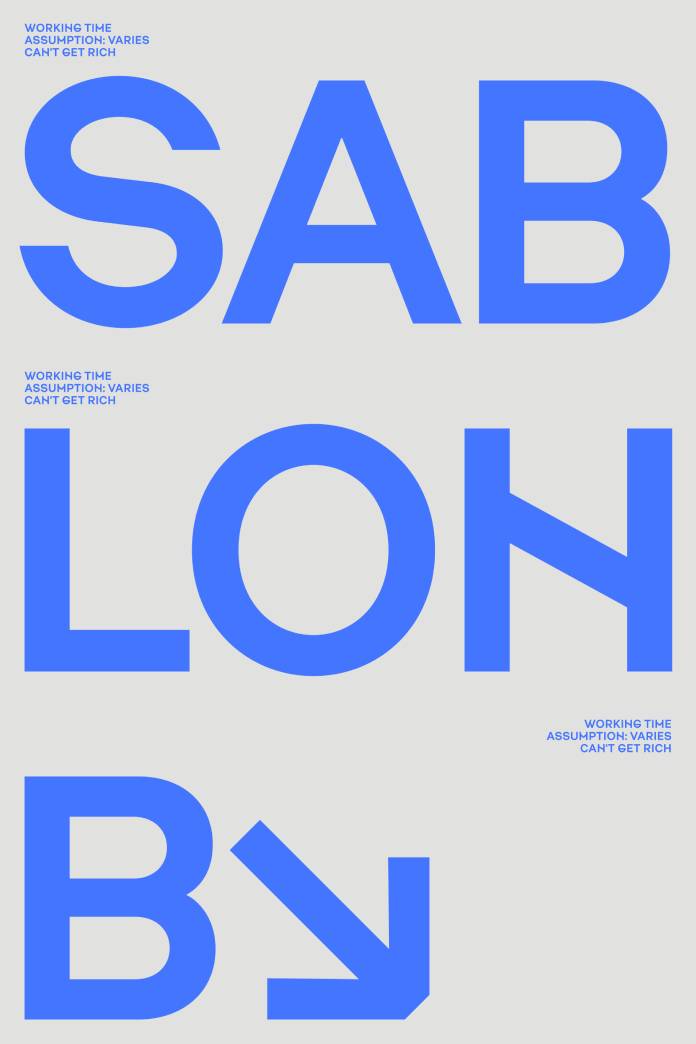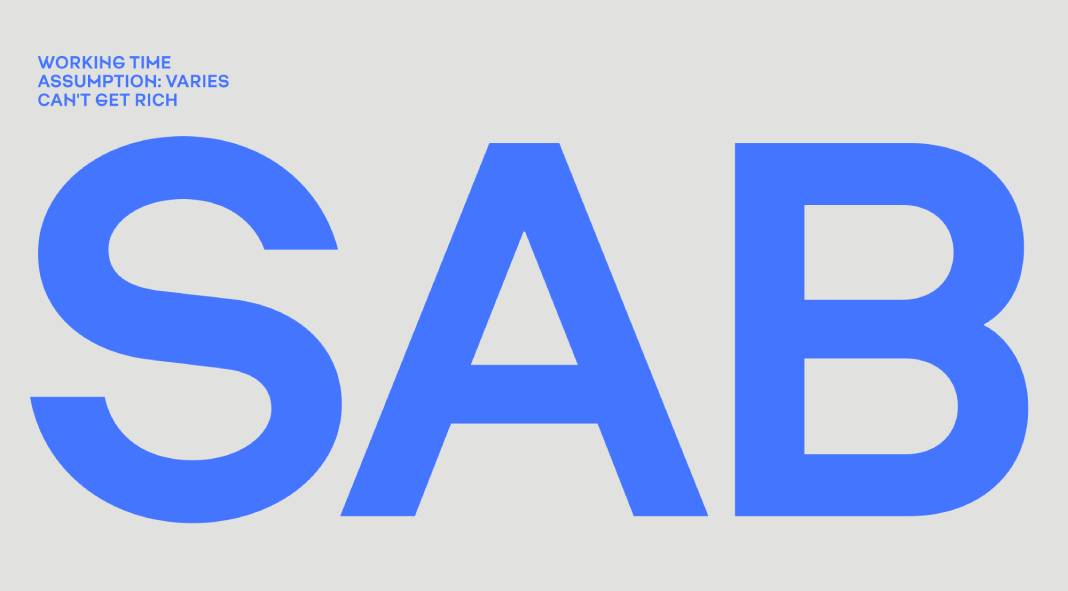
Enjoy today’s font review: Sablon B.
The Sablon B font, created by Roman Cernohous, is an exceptional typeface that stands as a bold expression of the original Sablon font. With its completely redesigned letters and numerals, this font offers a distinctive and captivating aesthetic without any distracting elements.
One of the standout features of Sablon B is its versatility, thanks to the availability of four different weights. This range of weights allows designers to explore various design possibilities and find the perfect balance for their projects. Whether you’re looking for a subtle emphasis or a striking headline, Sablon B has you covered.
The vintage stylistic set, inspired by lower horizontal lines, adds an extra layer of character and charm to this font. It provides designers with an opportunity to infuse their designs with a nostalgic touch while maintaining a contemporary feel. This combination of modern design elements and vintage-inspired details sets Sablon B apart from other fonts in its category.
In addition to its visual appeal, Sablon B offers excellent language support, including a complete set of Cyrillic characters. This feature ensures that designers working with languages that use the Cyrillic script can seamlessly integrate Sablon B into their projects. The attention to detail and comprehensive language support demonstrate the thoughtfulness and meticulousness put into the font’s development.
Overall, Sablon B by Roman Cernohous is a remarkable font that delivers a bold and captivating expression without any distracting moments. Its completely redesigned letters and numerals, along with the vintage stylistic set, offer a wide range of design possibilities. With its four available weights and extensive language support, including Cyrillic characters, Sablon B is a versatile and reliable choice for designers seeking a visually striking and functional typeface.